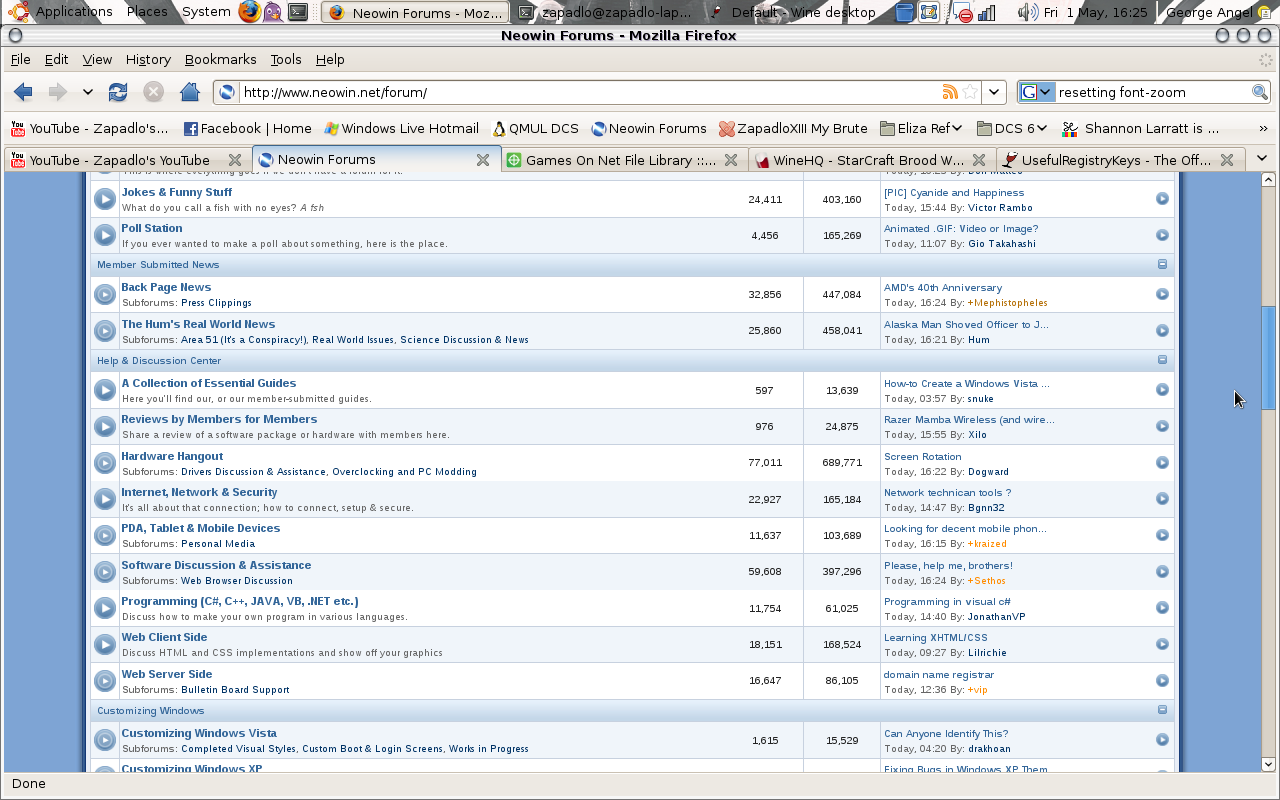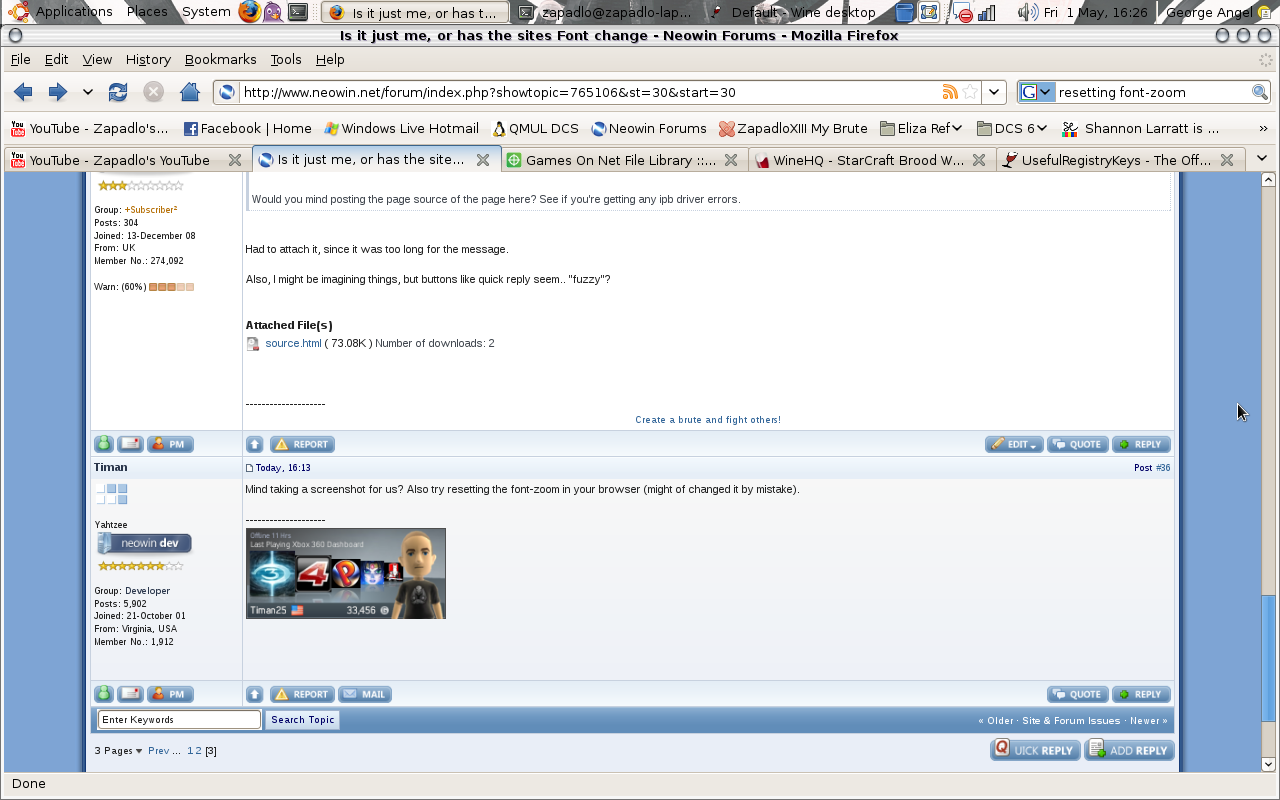
Budious Posted April 28, 2009 Share Posted April 28, 2009 Prefer the normal font myself when viewed in Firefox in Gnome, the other font was hard to read. Link to comment Share on other sites More sharing options...
scowl Posted April 28, 2009 Share Posted April 28, 2009 The new font that was being used was nice and crisp. Looked great on my widescreen. Anyone know what font it was? Time for a greasemonkey script? Link to comment Share on other sites More sharing options...
tsupersonic Posted April 28, 2009 Share Posted April 28, 2009 I use calibri to render everything, so it won't affect me at all, calibri ftw Link to comment Share on other sites More sharing options...
Salty Wagyu Posted April 28, 2009 Share Posted April 28, 2009 The new font sucked, couldn't get settled with it because it was a smaller size than most other webpages are rendered in on this computer setup. Link to comment Share on other sites More sharing options...
Zapadlo Posted May 1, 2009 Share Posted May 1, 2009 I'm still stuck with tiny ariel, is there a way to fix this? It is too small to read and unread topics are not getting highlighted with bold. Link to comment Share on other sites More sharing options...
Zapadlo Posted May 1, 2009 Share Posted May 1, 2009 Clear your cache? Nope, still horrible. Link to comment Share on other sites More sharing options...
Fred Derf Veteran Posted May 1, 2009 Veteran Share Posted May 1, 2009 Nope, still horrible. Perhaps you have an older forum skin selected. Link to comment Share on other sites More sharing options...
Timan Veteran Posted May 1, 2009 Veteran Share Posted May 1, 2009 Perhaps you have an older forum skin selected. Every font here uses verdana for the content. Would you mind posting the page source of the page here? See if you're getting any ipb driver errors. Link to comment Share on other sites More sharing options...
Zapadlo Posted May 1, 2009 Share Posted May 1, 2009 Every font here uses verdana for the content.Would you mind posting the page source of the page here? See if you're getting any ipb driver errors. Had to attach it, since it was too long for the message. Also, I might be imagining things, but buttons like quick reply seem.. "fuzzy"? source.html Link to comment Share on other sites More sharing options...
Timan Veteran Posted May 1, 2009 Veteran Share Posted May 1, 2009 Mind taking a screenshot for us? Also try resetting the font-zoom in your browser (might of changed it by mistake). Link to comment Share on other sites More sharing options...
+Frank B. Subscriber² Posted May 1, 2009 Subscriber² Share Posted May 1, 2009 Hm. Have you ever installed the MS Core Fonts (package msttcorefonts)? To me it looks like your problem is that Verdana is missing. Link to comment Share on other sites More sharing options...